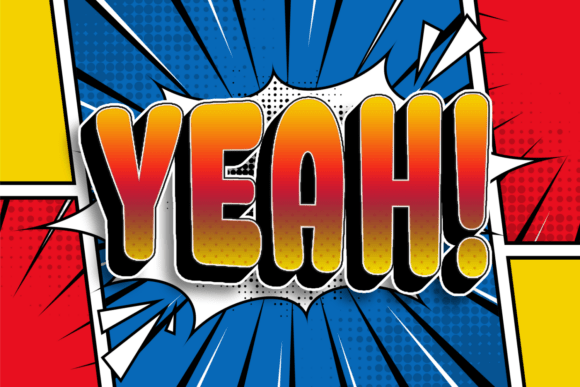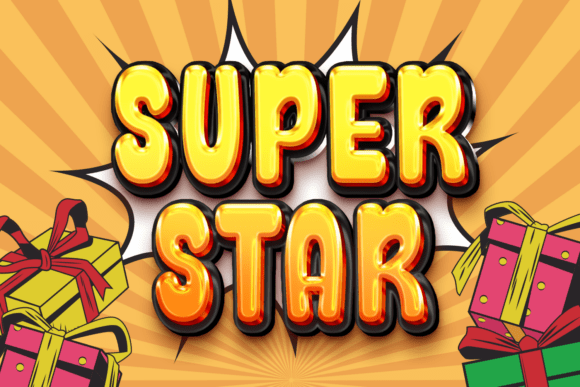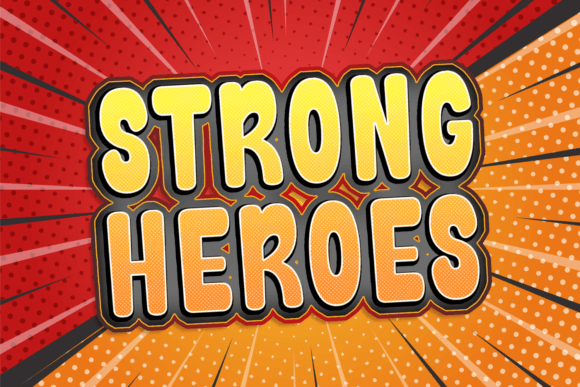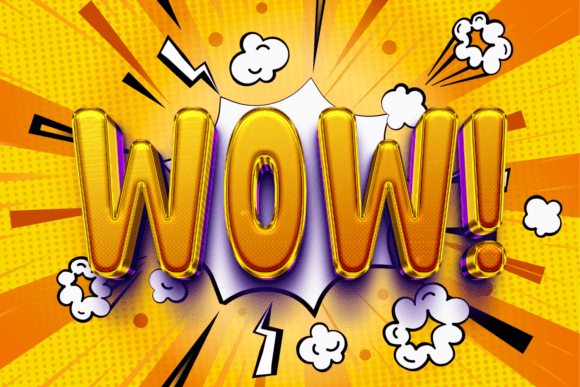
Unleash Your Creativity with Gifted Comics Font: A Lively and Vibrant Cartoon Typeface
Are you a designer, crafter, or artist looking for a font that can add a burst of energy and personality to your designs? Look no further than Gifted Comics Font! This lively and vibrant cartoon font is perfect for bringing a classic comic book flair to any project, from children’s books and comic strips to posters and playful branding.
What Makes Gifted Comics Font So Special?
Gifted Comics Font is a unique and eye-catching typeface that is sure to grab attention and keep readers engaged. Its chunky, rounded letterforms and bold outlines give it a playful and dynamic feel, while its vibrant colors add a pop of fun and energy. But what really sets Gifted Comics Font apart is its layered shadow effect, which adds depth and a playful 3D dimension to the text.
The Perfect Font for Playful Designs
Whether you’re designing a children’s book, creating a comic strip, or developing a playful brand identity, Gifted Comics Font is the perfect choice. Its fun and dynamic feel makes it perfect for grabbing attention and keeping readers engaged, while its versatility ensures that it can be used in a wide range of design applications.
Key Features of Gifted Comics Font
- Chunky, rounded letterforms: Giving Gifted Comics Font its playful and dynamic feel.
- Bold outlines: Adding a classic comic book flair to the text.
- Vibrant colors: Bringing a pop of fun and energy to the design.
- Layered shadow effect: Adding depth and a playful 3D dimension to the text.
How to Use Gifted Comics Font in Your Designs
Gifted Comics Font is easy to use and can be incorporated into a wide range of design applications. Here are a few ideas to get you started:
- Children’s books: Use Gifted Comics Font to bring your story to life and engage young readers.
- Comic strips: Add a classic comic book flair to your comic strips with Gifted Comics Font.
- Posters: Use Gifted Comics Font to create eye-catching posters that grab attention.
- Playful branding: Develop a fun and dynamic brand identity with Gifted Comics Font.
Tips for Getting the Most Out of Gifted Comics Font
Here are a few tips for getting the most out of Gifted Comics Font:
- Experiment with colors: Try out different color combinations to find the perfect look for your design.
- Play with the layered shadow effect: Adjust the shadow effect to add depth and dimension to your text.
- Use it with other fonts: Combine Gifted Comics Font with other fonts to create a unique and eye-catching design.
Gifted Comics Font is a lively and vibrant cartoon font that is perfect for designers, crafters, and artists looking to add a burst of energy and personality to their designs. With its chunky, rounded letterforms, bold outlines, and vibrant colors, this typeface brings a classic comic book flair to any design. So why not give Gifted Comics Font a try and see how it can bring your designs to life?